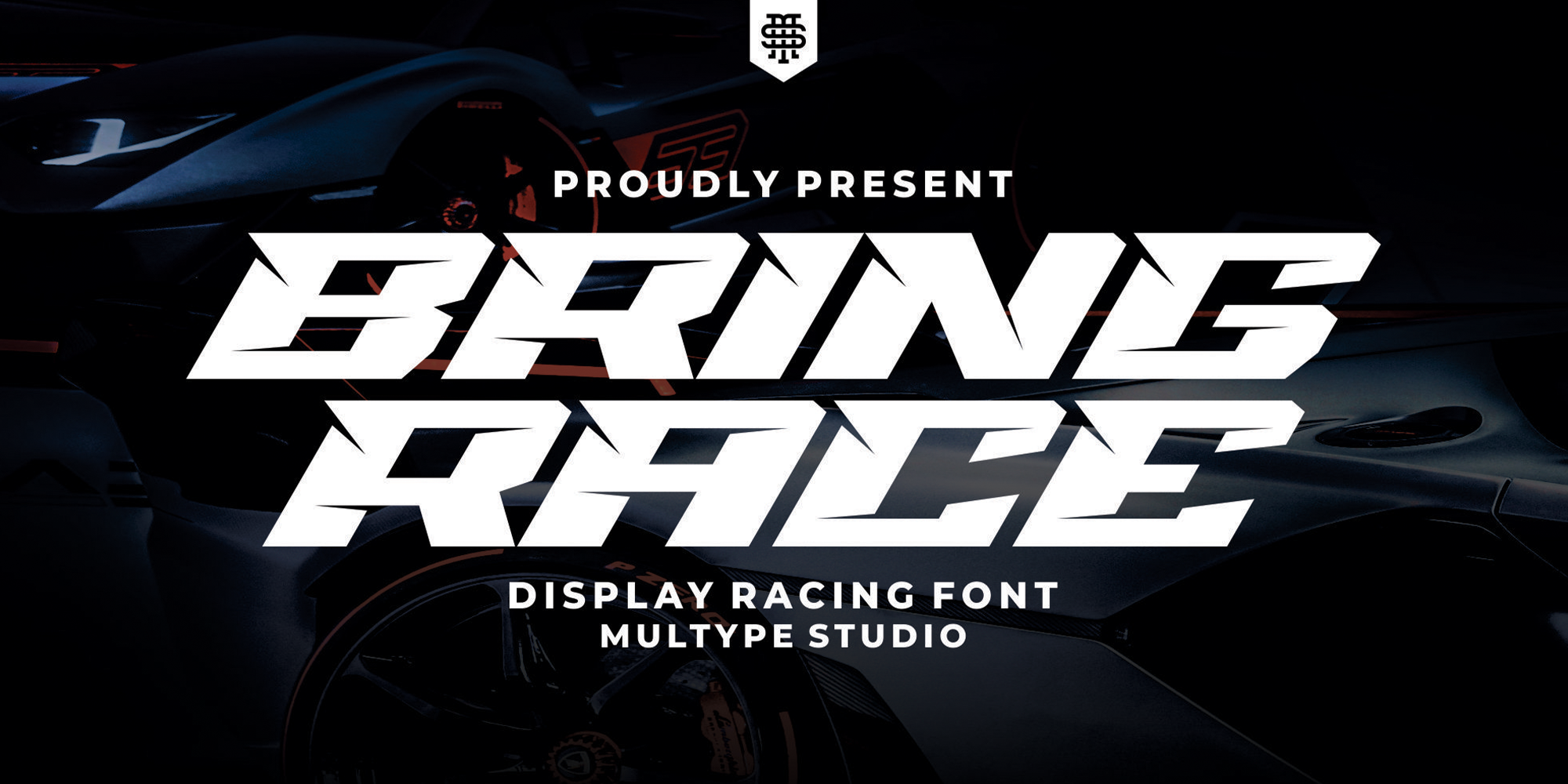
The Bring Race Font is perfect for motorsports branding, racing team logos, automotive event promotions, speed-focused gaming graphics, adrenaline-fueled advertising campaigns, high-performance product launches, extreme sports marketing, dynamic car dealership materials, and competitive sports communications that require explosive energy and velocity-inspired typography.
What makes the Bring Race Font so exciting is its electrifying ability to capture the pure essence of speed, competition, and high-octane performance through dynamically engineered letterforms that seem to accelerate across the page with unstoppable momentum. This powerful typeface embodies the thrill of racing competition and the relentless pursuit of victory, featuring aggressive angles, aerodynamic curves, and kinetic energy that creates an immediate sense of velocity and competitive intensity. The font's high-impact design and racing-inspired character make it the ultimate choice for brands and projects that need to communicate speed, performance excellence, and the exhilarating rush of competitive motorsports.
The Bring Race Font family typically includes regular, bold, and condensed weights, along with speed-inspired alternates and dynamic design elements that provide racing brands with comprehensive tools for creating high-velocity visual identities and competition-focused marketing materials.
Racing organizations and performance automotive brands consistently choose Bring Race Font Free Download for its unparalleled ability to convey competitive intensity and motorsports authenticity. This dynamic typeface represents the perfect fusion of racing heritage and contemporary design innovation, offering professionals a powerful tool for building memorable brand experiences that resonate with racing enthusiasts and performance-oriented audiences. Whether you're developing branding for racing teams, creating promotional materials for motorsports events, designing automotive performance products, or crafting high-energy social media campaigns, this font delivers the competitive edge and speed credibility that racing communications demand.
The dynamically engineered letterforms of the Bring Race Font showcase aerodynamic profiles and competitive details that reference high-performance racing technology and championship-winning engineering. The font's aggressive construction and velocity-inspired spacing create maximum visual impact across racing environments and competitive marketing landscapes where attention must be captured instantly.
Motorsports marketing professionals and automotive brand designers appreciate the font's versatility in creating powerful racing typography that maintains intensity while ensuring readability across various high-speed applications, from large-scale track graphics to detailed technical specifications and performance data presentations.
For organizations seeking to establish dominant presence in motorsports markets and communicate racing excellence to speed enthusiasts and competitive audiences, the Bring Race Font offers an exceptional typography solution. Its racing-tested aesthetic and proven competitive impact make it particularly suitable for racing organizations, automotive performance companies, motorsports equipment manufacturers, and speed-focused brands that prioritize victory and performance superiority.
The font's optimization for both traditional racing graphics and modern digital motorsports platforms ensures consistent competitive impact across all high-performance marketing channels, while its velocity-inspired design maintains clarity and power at any application size, making it ideal for comprehensive racing brand systems requiring typography that commands respect and communicates uncompromising performance standards in today's ultra-competitive motorsports landscape.